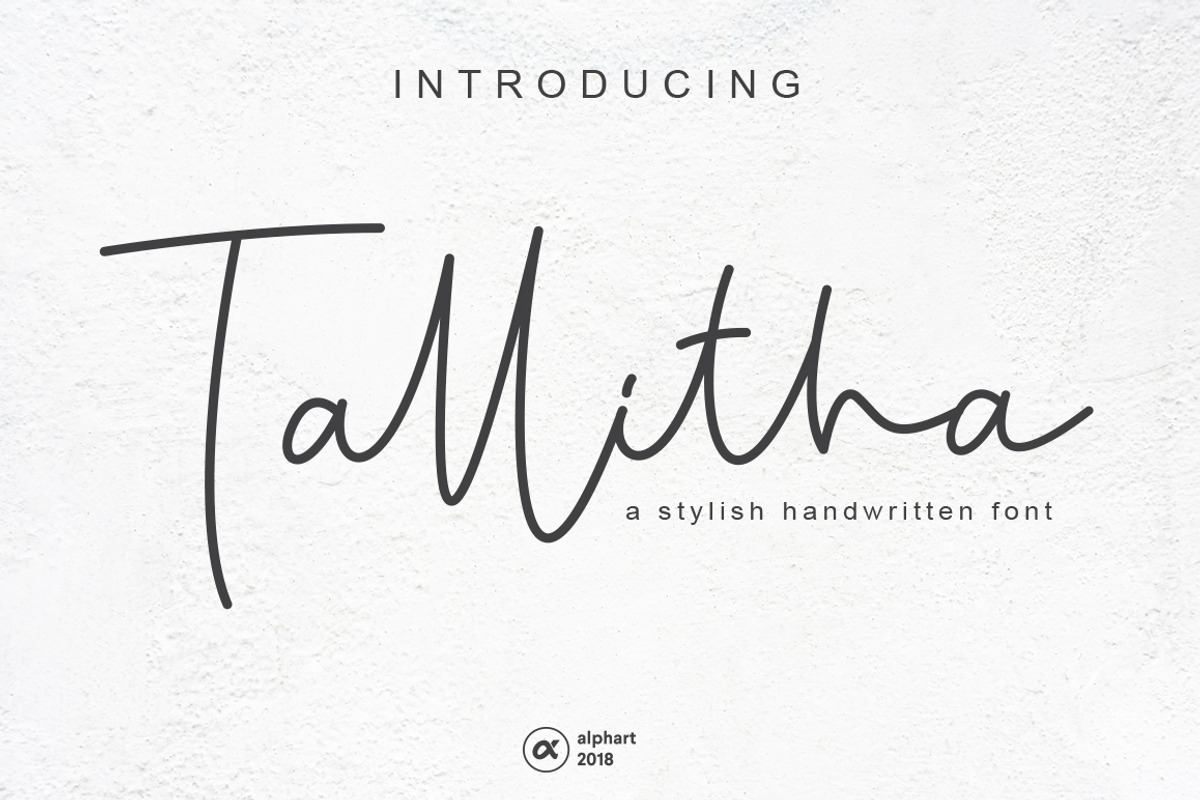
Tallitha a stylish handwritten font Free Download
Tallitha – A Stylish Handwritten Font Free Download is a modern and graceful script typeface that captures the natural beauty of handwritten lettering with a fashionable twist. Please note, you are required to purchase this font for commercial use. It is available for free download for testing and personal projects only.
With its flowing curves, elegant swashes, and smooth rhythm, Tallitha is perfect for wedding invitations, logo design, branding, social media posts, product packaging, and quotes. It brings a personal and feminine touch to your typography—ideal for projects that need both charm and sophistication.